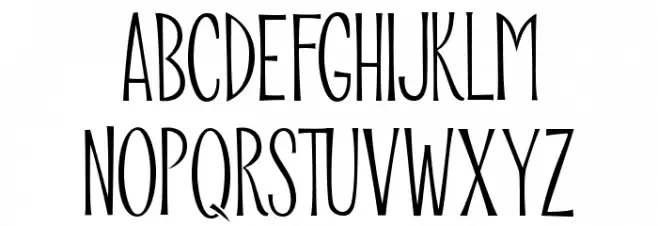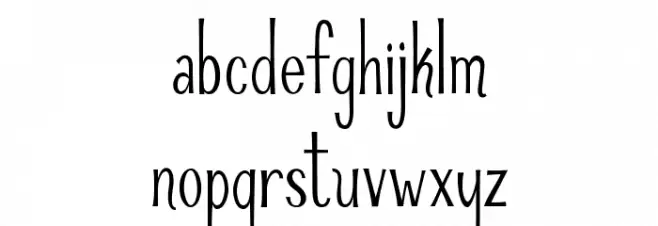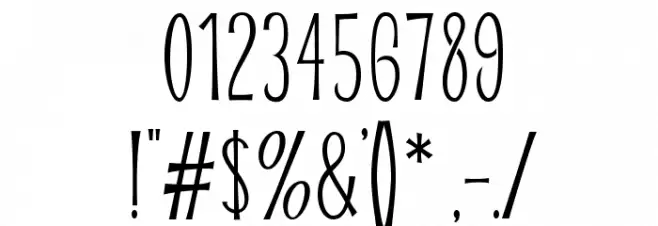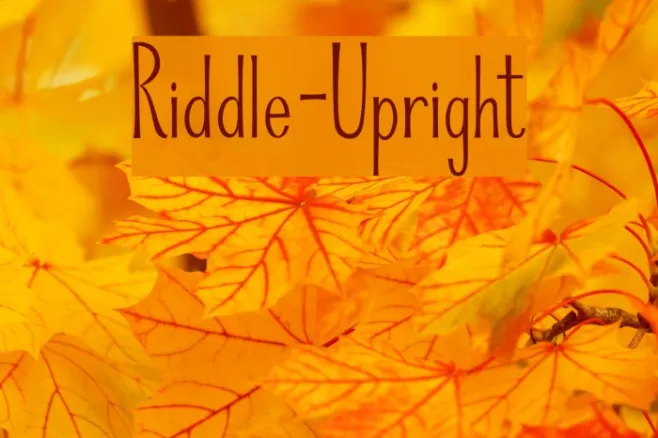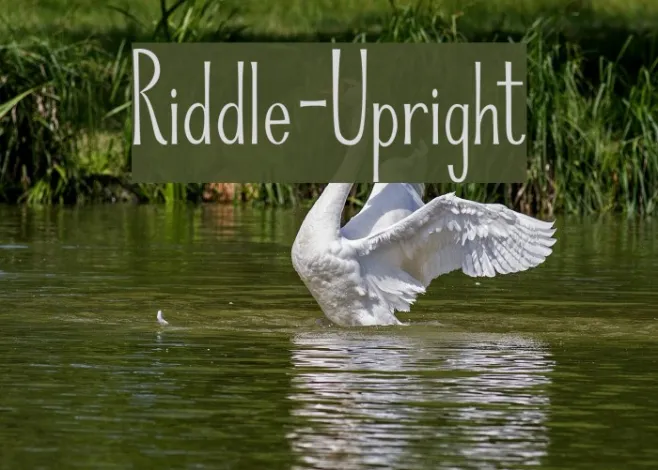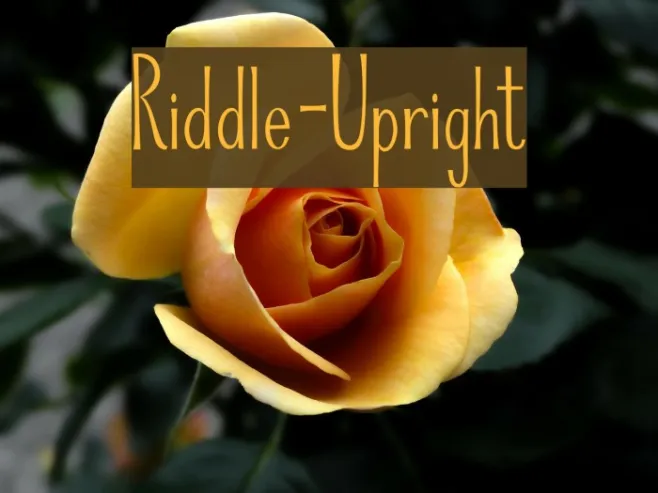
Riddle-Upright Font
Inspired by the cover of Frank Sinatra and Nelson Riddle LP "Only the Lonely". Harold Lohner from HAROLDFONTS gave me a hand on this one about back in 2000. Thank Harold. 13 years later, it finally has uppercases, numbers and punctuations. This font is free for non-commercial use and donationware for commercial use. Make a donation through PayPal my account there is: turoturom@yahoo.es